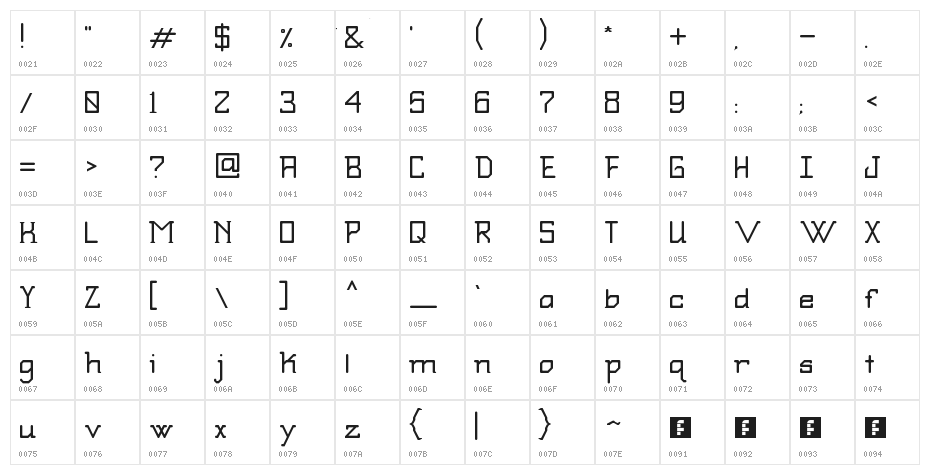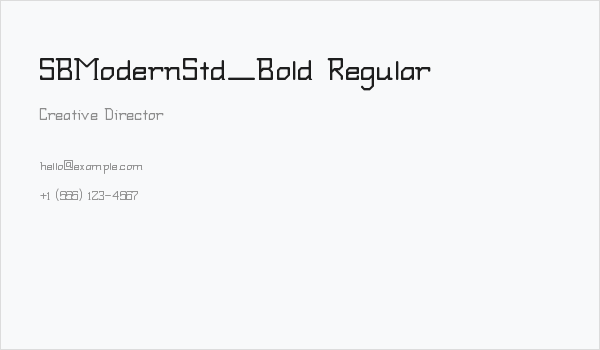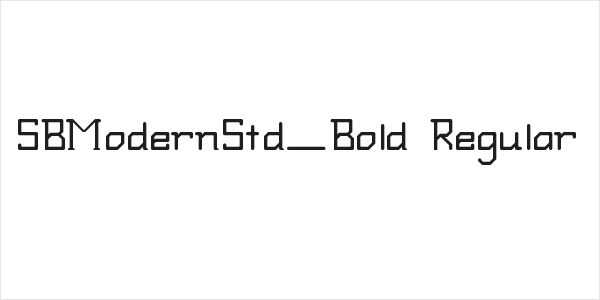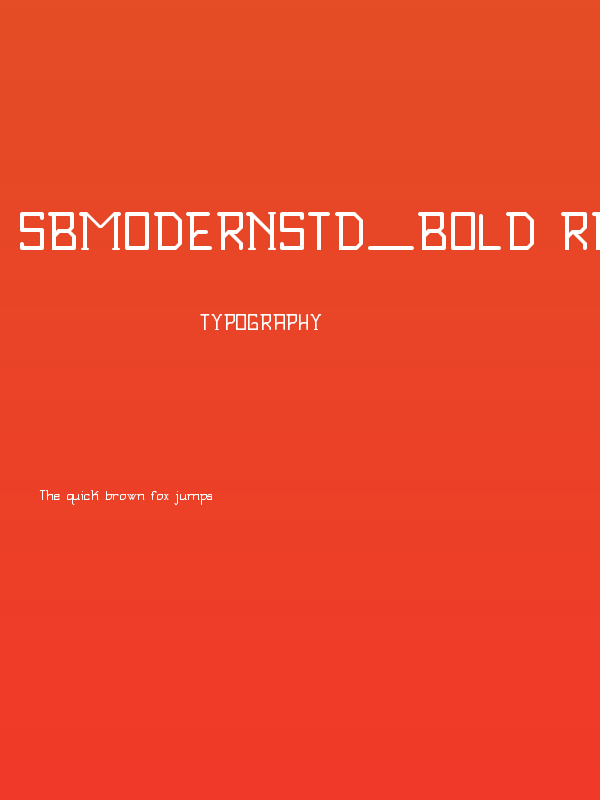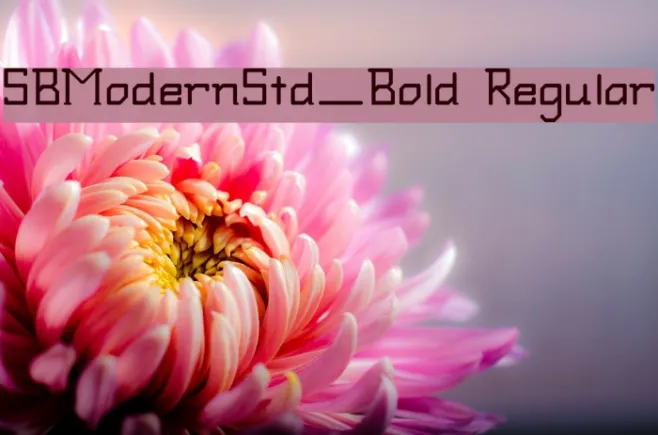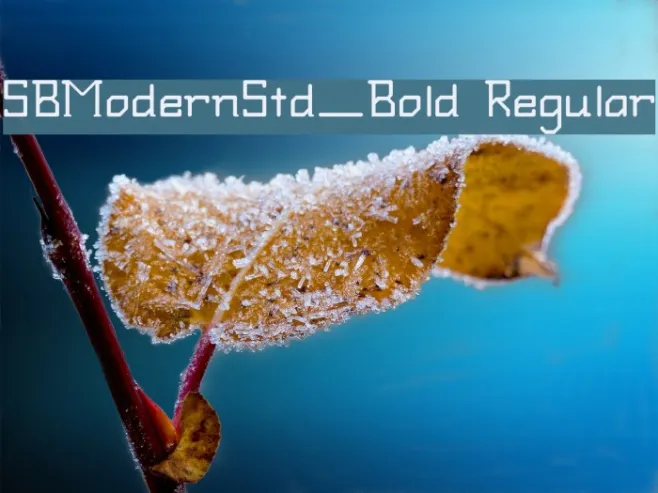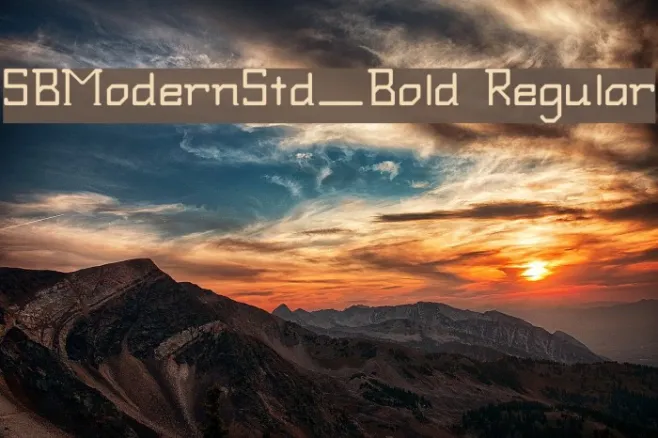
SBModernStd_Bold Regular Font
SBModernStd_Bold Regular Description
This font features a modern and geometric design with a strong, structured appearance. The characters are composed of straight lines and sharp angles, giving it a technical and futuristic feel. The uppercase letters are bold and prominent, while the lowercase letters maintain a consistent style with slightly rounded edges. The numerals are clear and distinct, matching the overall aesthetic of the font. Special characters are well-integrated, maintaining the same geometric style. This font is ideal for projects that require a modern and clean look, such as technology branding or digital interfaces.
| Overall Style | Modern, Technical |
| Use Case | Headlines, Logos, Digital Interfaces |
| Proposed Projects | Ideal for technology branding, digital interfaces, and modern design projects. |